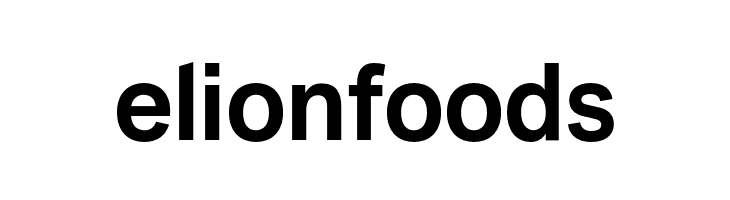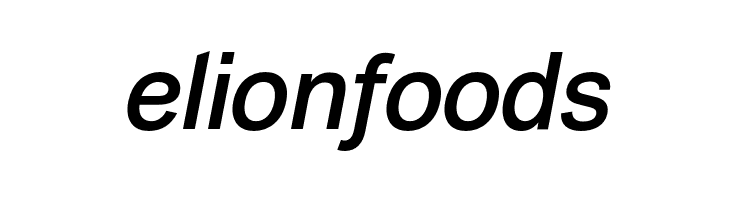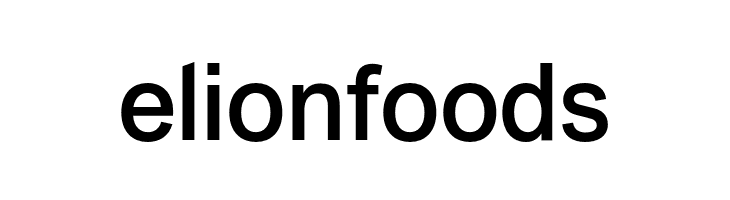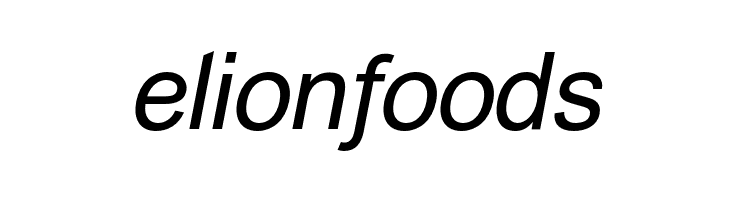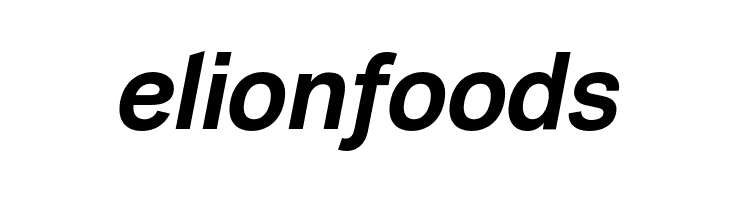
A bold, modern sans-serif typeface with a clean and geometric design.
A modern, bold sans-serif font with clean lines and uniform strokes.
A modern, italicized font with clean lines and a professional appearance.
A modern, italic sans-serif font with a clean and dynamic appearance.
A modern, italic sans-serif font with balanced proportions and medium weight.
A bold, geometric typeface with a modern and professional appearance.
A modern, geometric sans-serif font with uniform strokes and clear characters.
Bold, italicized font with a geometric and angular design.